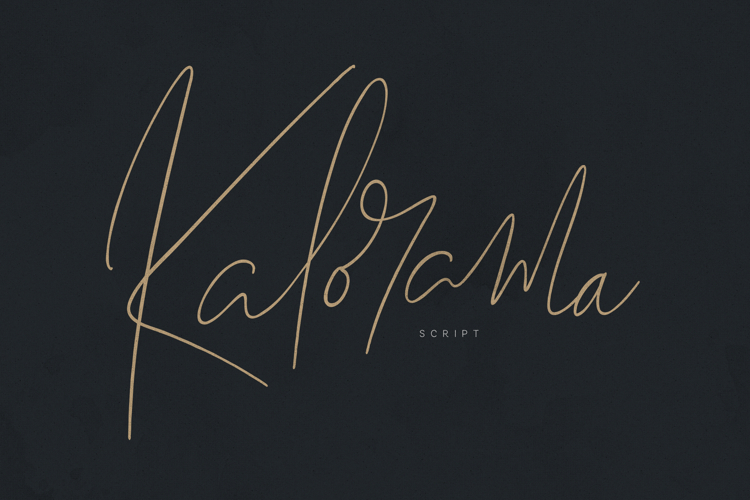
Kalorama Script Elegant Signature Handwritten Font
Kalorama Script is a refined and expressive handwritten signature font crafted to bring elegance, confidence, and personality to your designs. Featuring flowing strokes, graceful curves, and a natural handwritten rhythm, Kalorama Script captures the beauty of authentic calligraphy with a modern edge.
Perfect for luxury branding, fashion logos, wedding invitations, packaging, editorial layouts, and social media content, this font adds a sophisticated touch to every project. The smooth letter connections and stylish alternates create a premium handwritten aesthetic ideal for high-end visual identities.
- Natural signature-style flow
Ideal for:
Logotypes, signatures, wedding stationery, branding, beauty products, photography watermarks, quotes, and premium packaging.